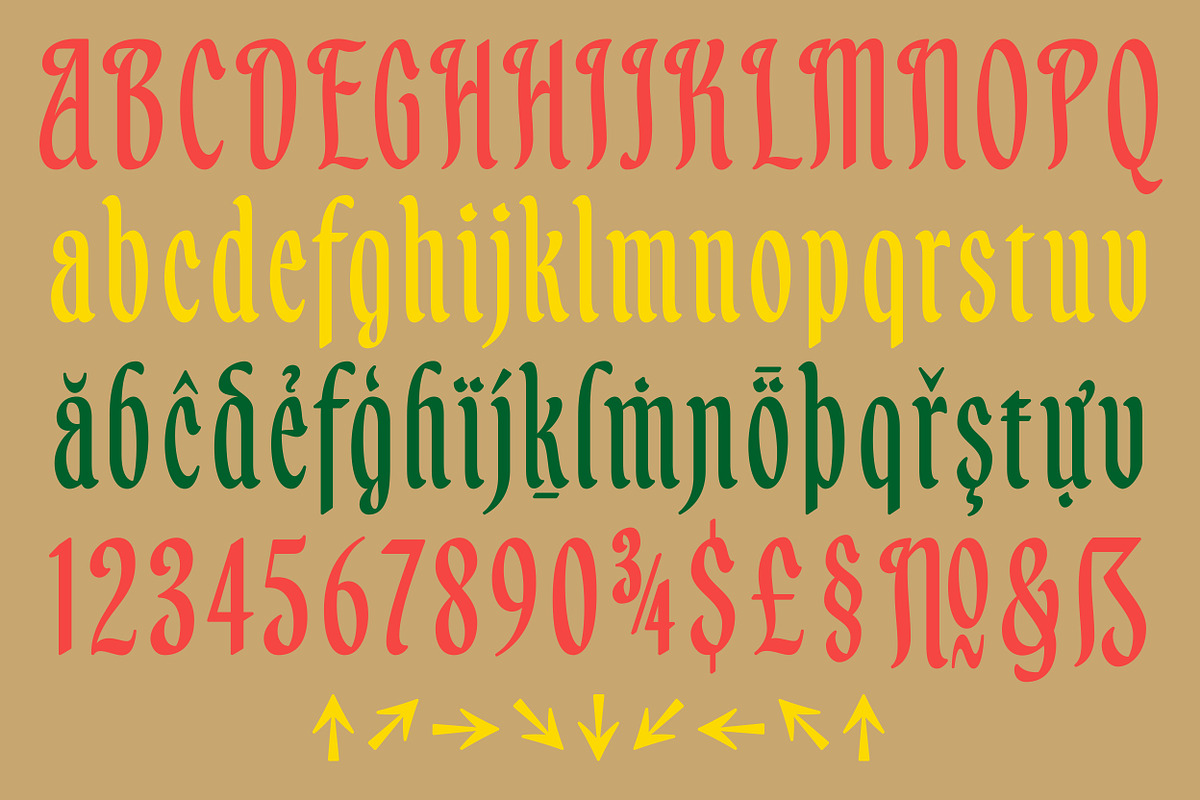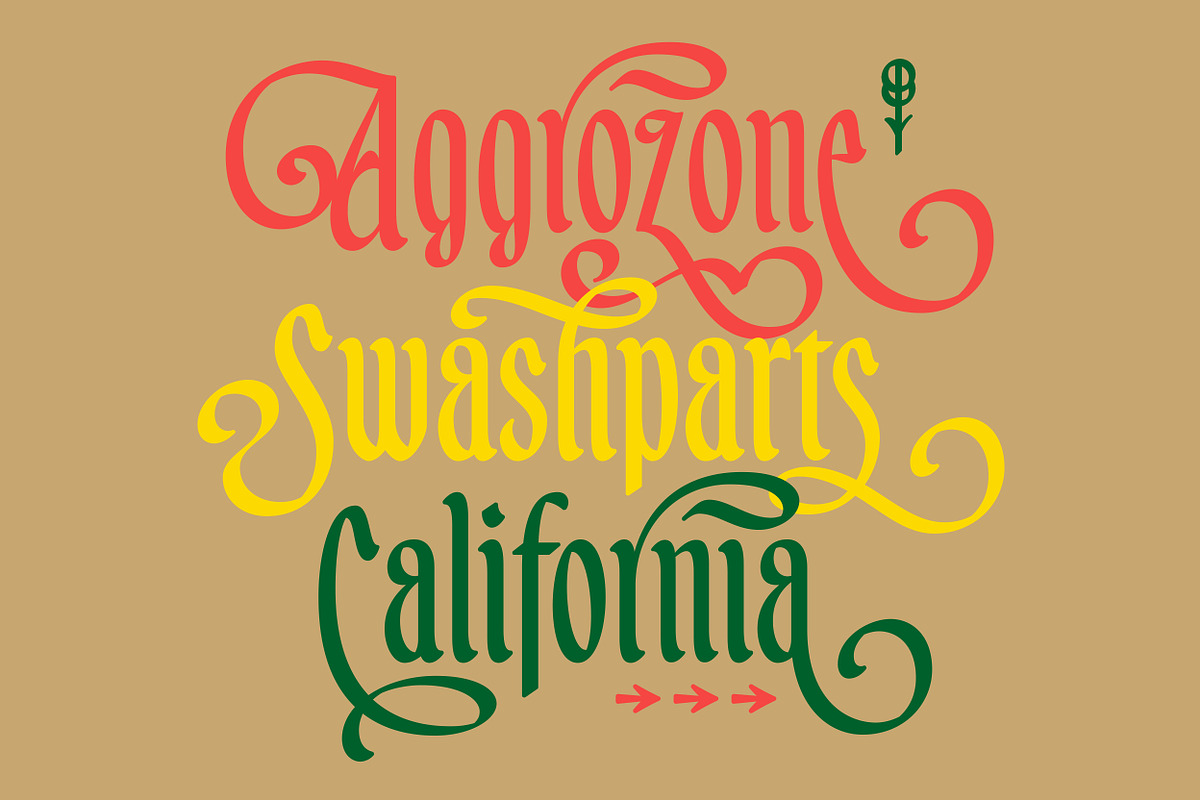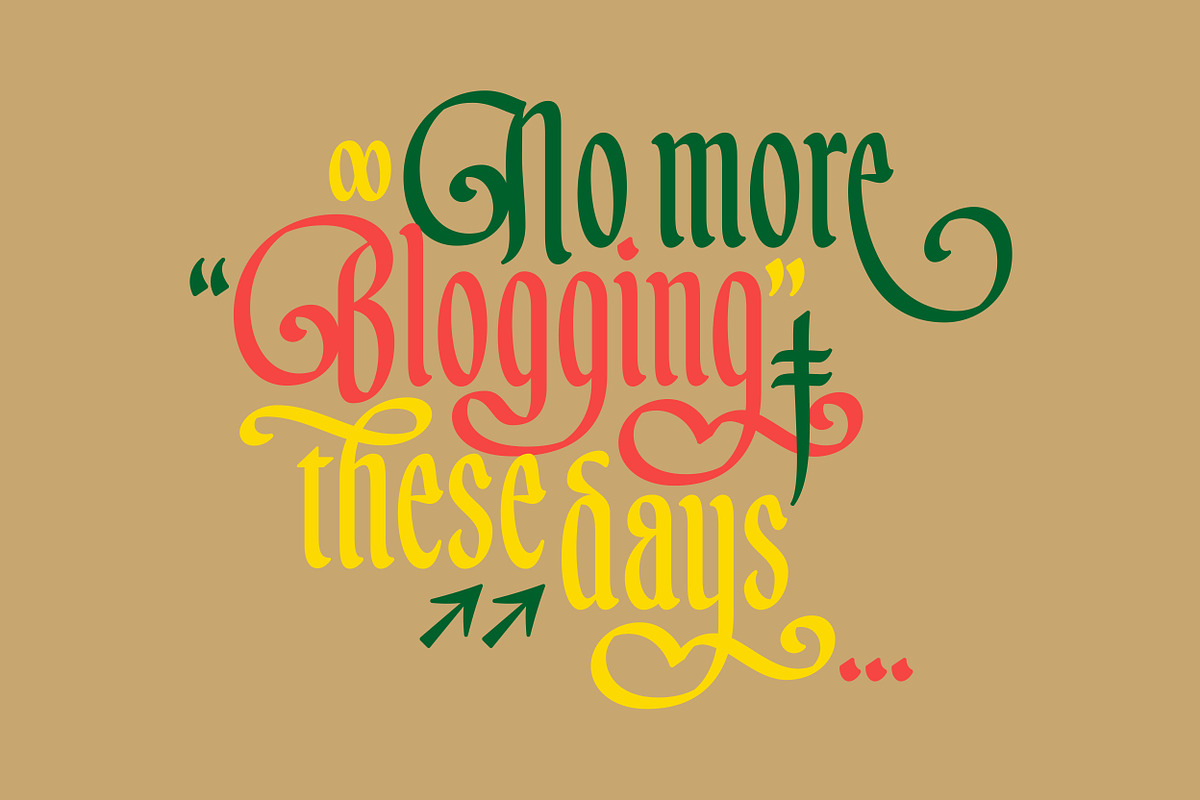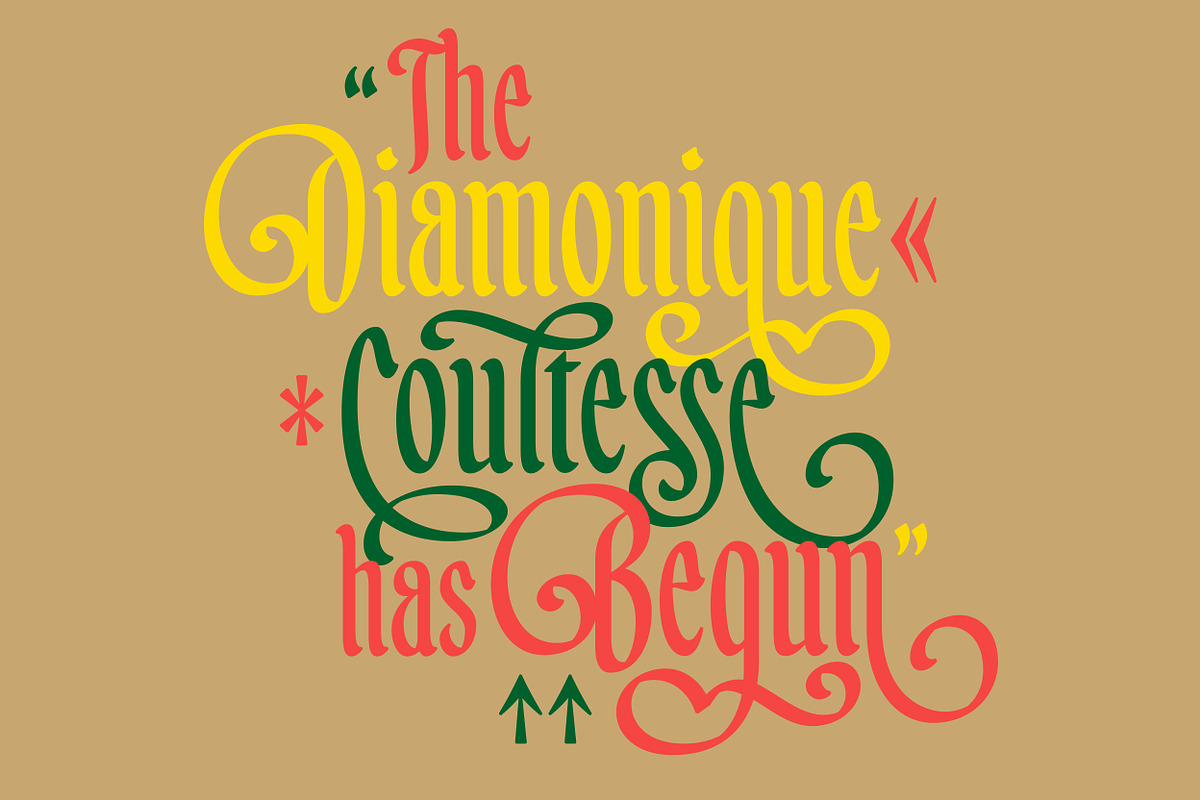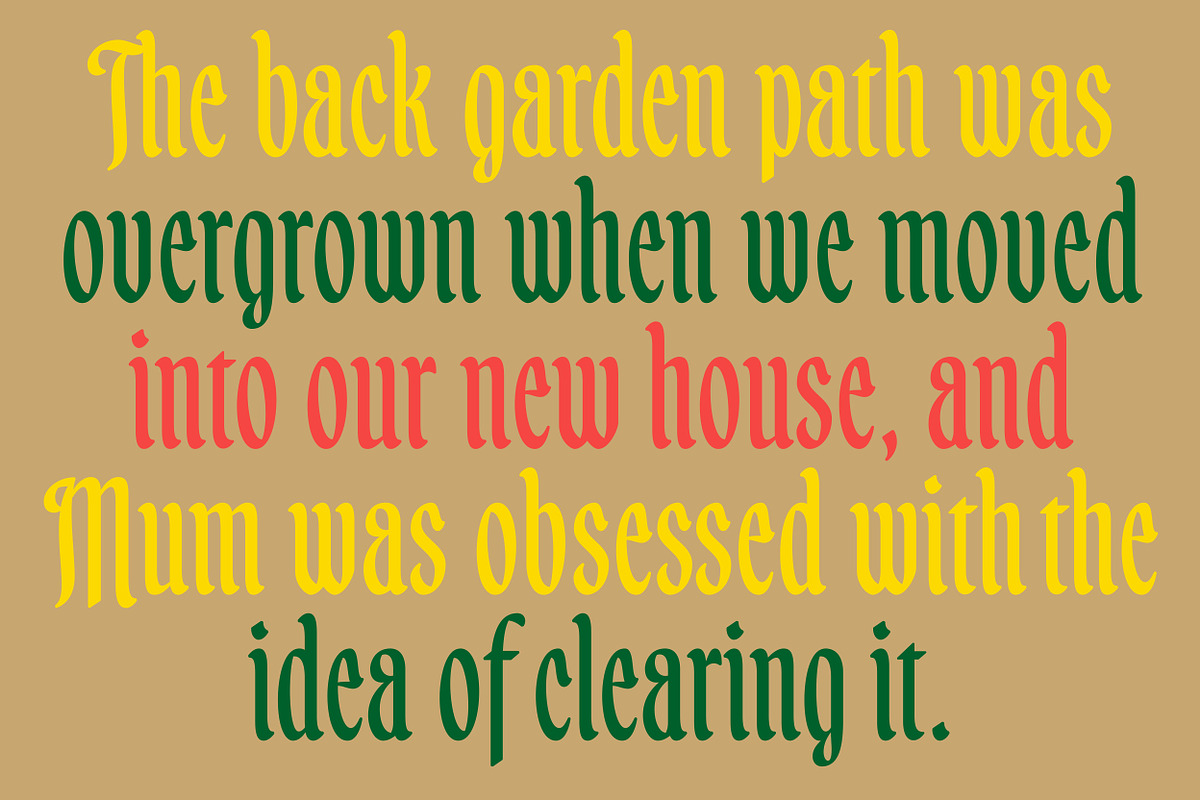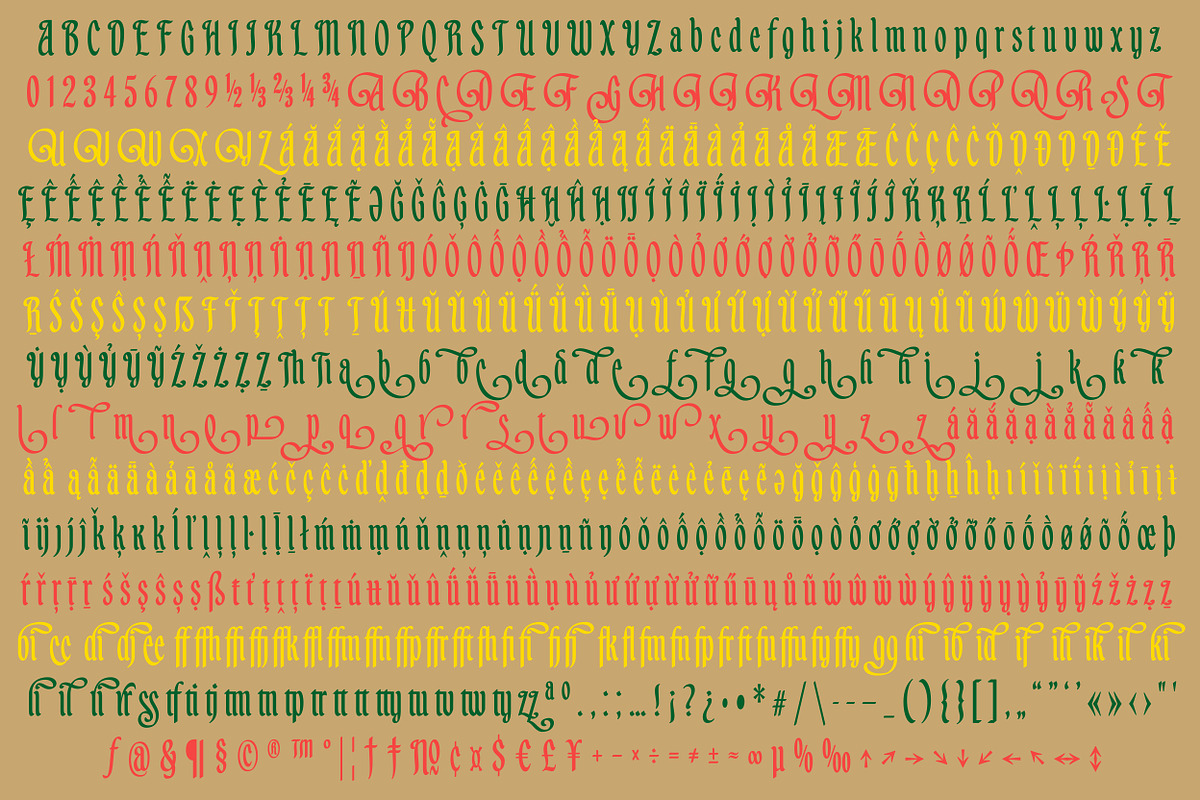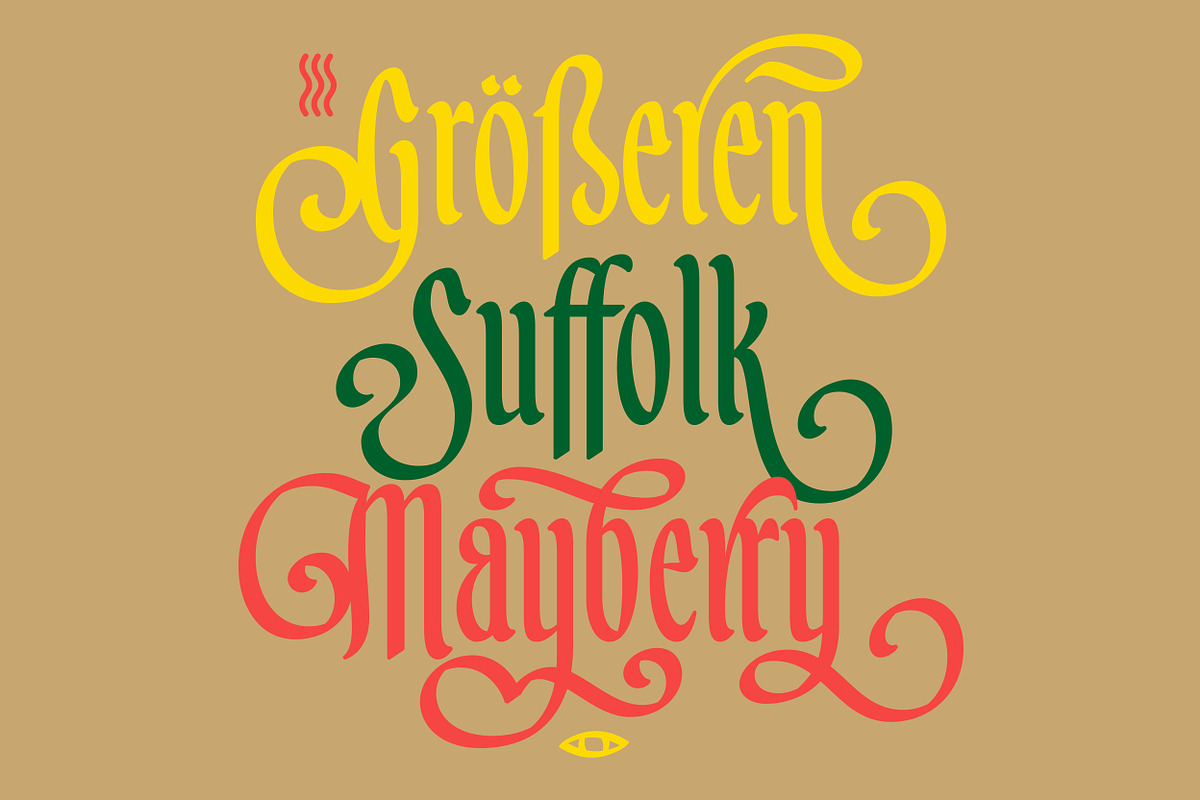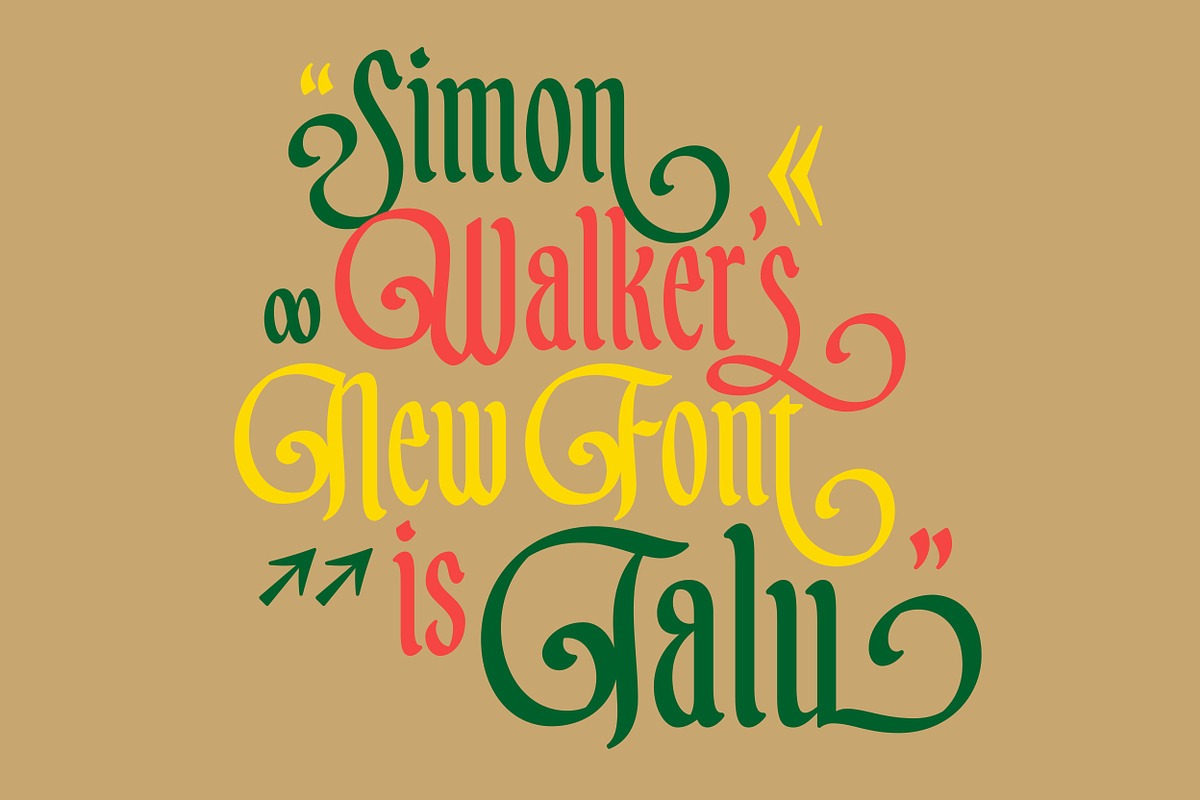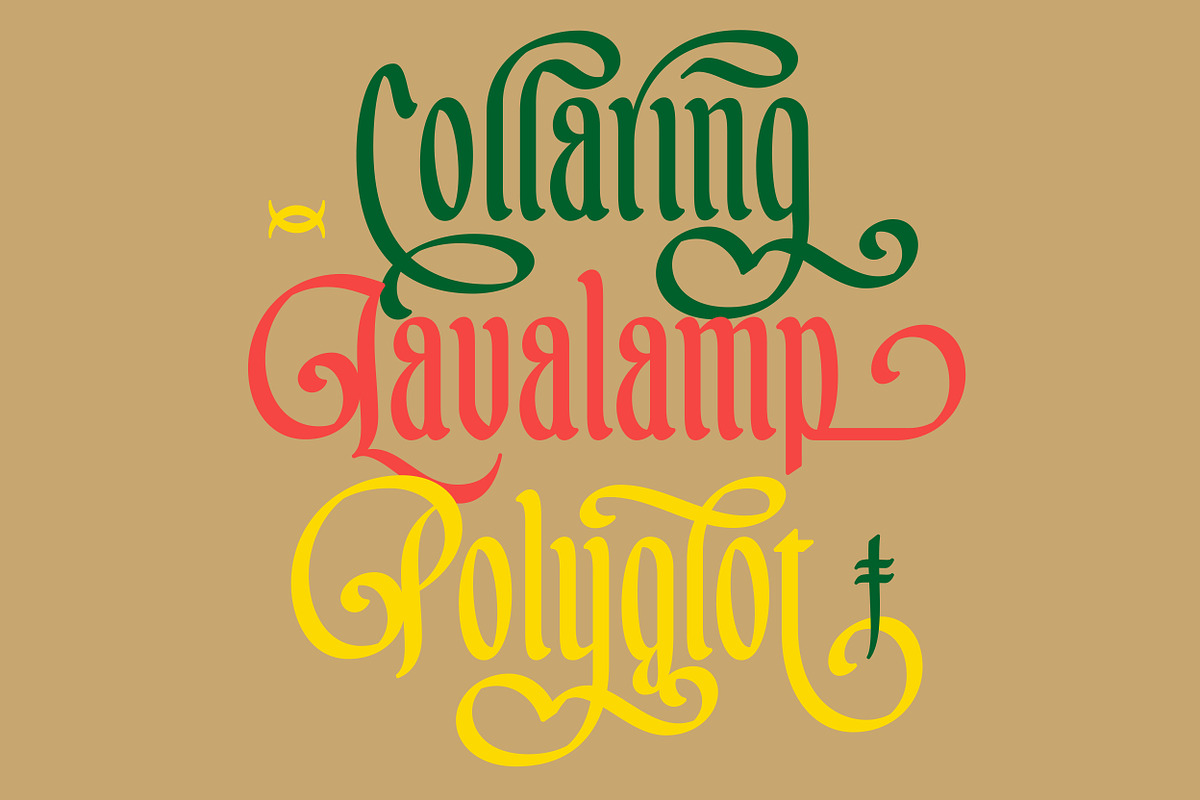
Talu
Talu is a warm, condensed, blackletter font that's simple enough for use in a wide range of applications, but comes with enough stylistic alternates to add an almost limitless amount of complexity and flavor. It was inspired by the folk myths and legends of Old England - a perfect font for storybooks cracked open around an old log fire in a dark and windswept castle on a magical and long-forgotten moor.